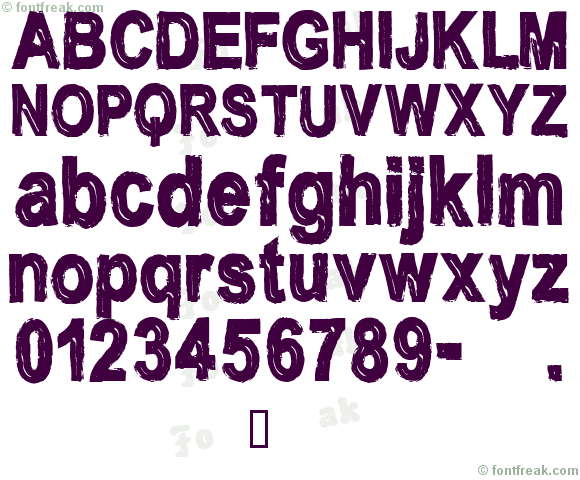
CF Nostalgia Regular
About CF Nostalgia Regular
CF Nostalgia Regular by Cloutierfontes is a captivating display font that embodies a playful yet nostalgic aesthetic. This free-to-download font is characterized by its unique, hand-crafted appearance, which gives it an inviting and personal touch. The strokes are robust, featuring a moderate contrast that adds a sense of dynamism without overwhelming the viewer. The irregularities in the letterforms create a sense of authenticity, making it feel as though each character has been crafted with care.
This font shines in a variety of applications. It is particularly well-suited for wedding invitations, where its whimsical nature can evoke a sense of joy and celebration. Movie posters can benefit from its bold presence, drawing attention to titles and taglines alike. Restaurant menus will find CF Nostalgia Regular an excellent choice for highlighting dish names, providing an engaging and memorable dining experience. Additionally, small business branding, especially for those in creative industries, can leverage this font to project a friendly and approachable image.
The target audience for this font includes graphic designers seeking to enhance their projects with a distinctive typeface, small business owners looking to establish a unique brand identity, and content creators aiming to add a personal touch to their designs.
What sets CF Nostalgia Regular apart is its ability to evoke a sense of familiarity while still feeling fresh and modern. Its handcrafted style is perfect for those who want to make a statement with their typography, combining nostalgia with contemporary design sensibilities. With the CF Nostalgia Regular font free download, you can easily incorporate this charming typeface into your projects, making them stand out in an increasingly crowded visual landscape.